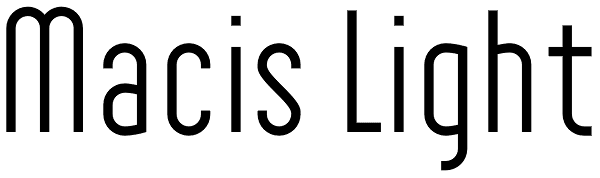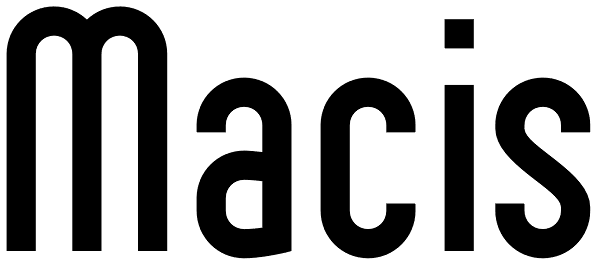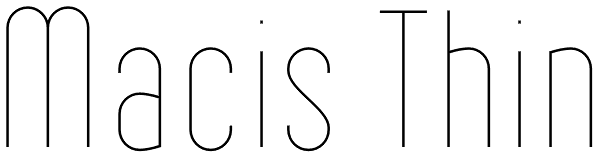
Macis
Macis is a real-and-fake-retro-modern font-family containing five weights from thin to black. It is inspired by shop signs, packaging and typography from around the middle of 20th century. Though it is strictly geometrically constructed, it contains...